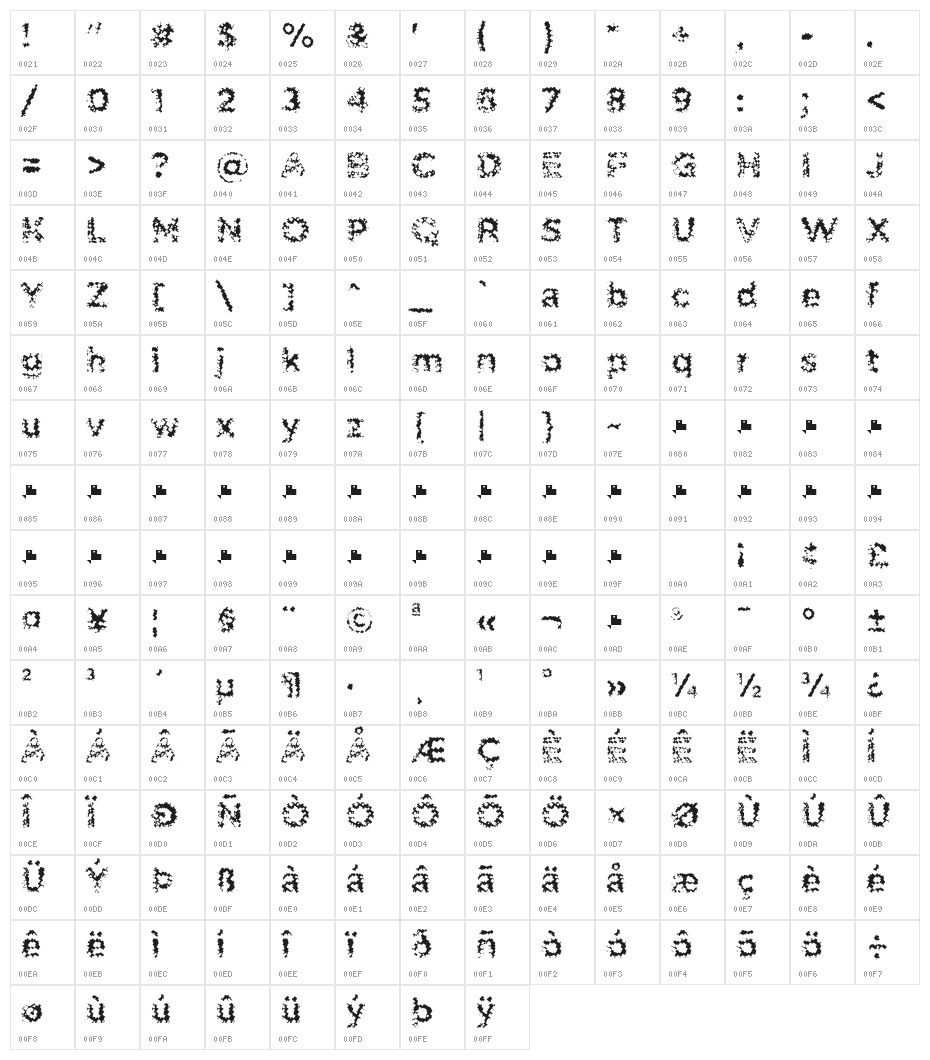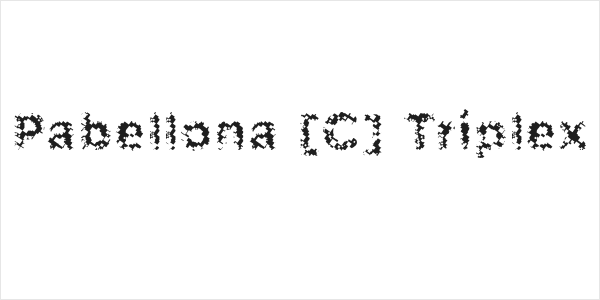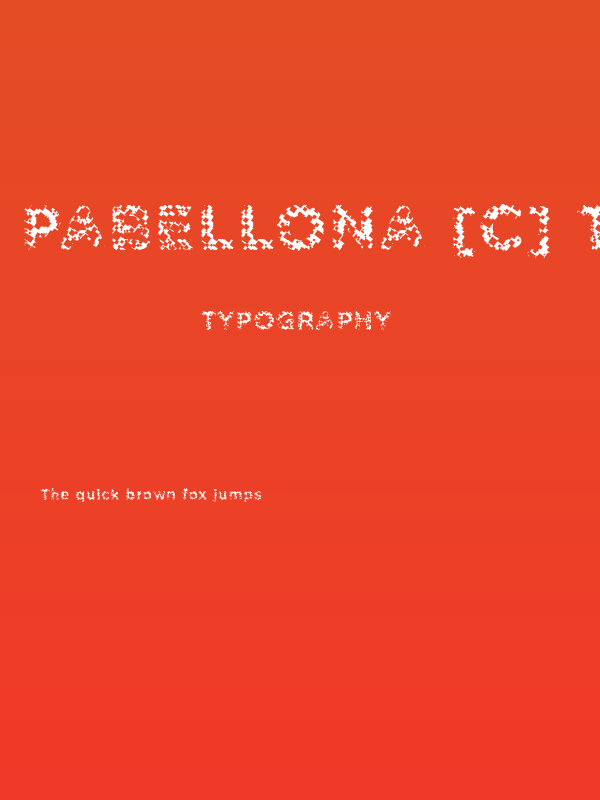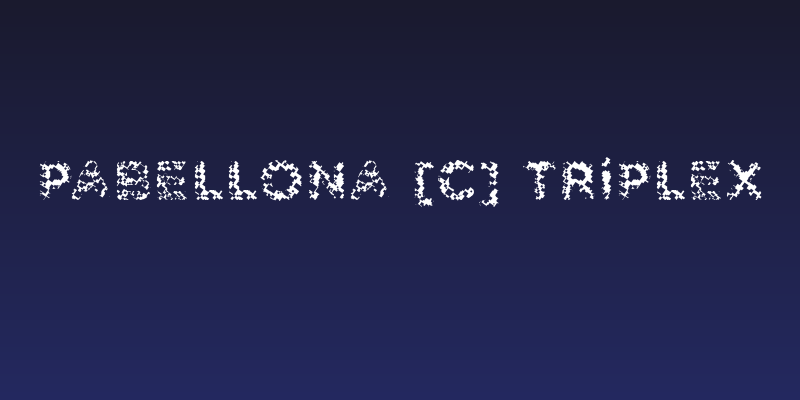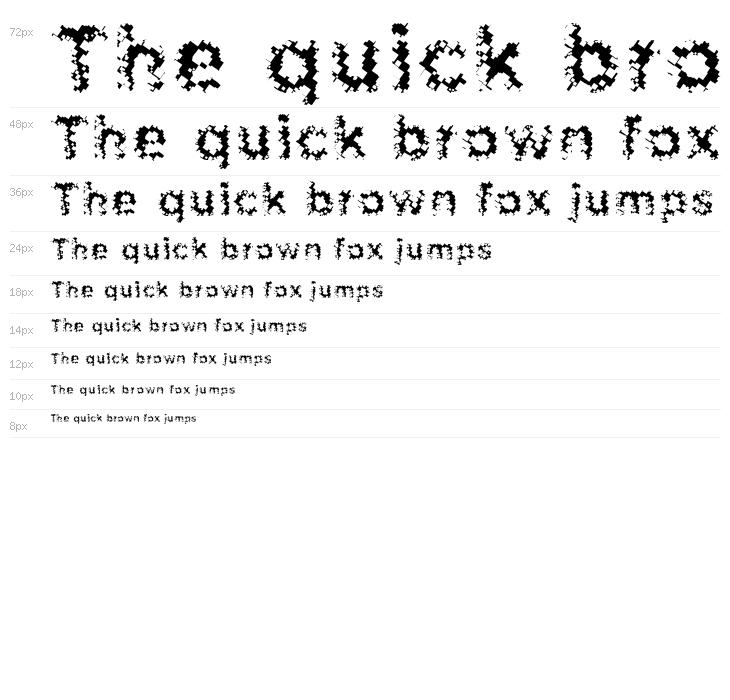
Pabellona [C] Tríplex Font
Pabellona [C] Tríplex Description
This font features a highly decorative and textured style, reminiscent of intricate lace or a complex web pattern. Each character is composed of a series of interlocking shapes that create a sense of depth and movement. The overall appearance is bold and eye-catching, making it suitable for creative and artistic projects. The uppercase and lowercase letters maintain a consistent design, ensuring readability despite the elaborate detailing. Numbers and special characters follow the same ornate pattern, providing a cohesive look across all glyphs.
| Proposed Projects | Ideal for artistic posters, unique branding, album covers, and creative invitations. |